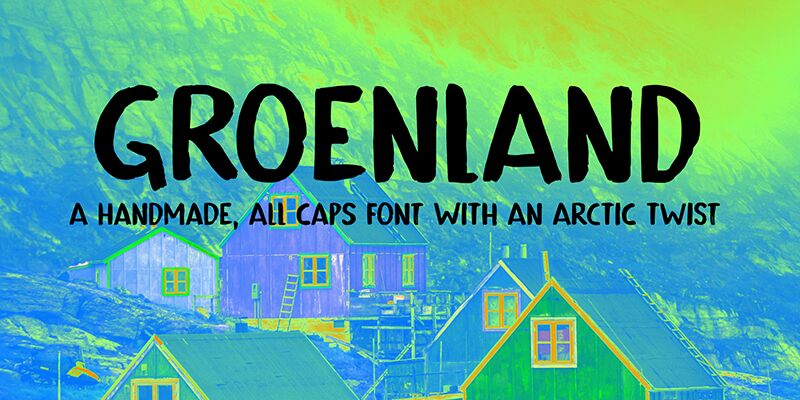
Groenland DEMO Regular
Groenland font by Hanoded embodies an ungainly, handcrafted appearance with earthy tones and casual elegance. This brush-style font exudes rustic charm, making it perfect for artisans and designers who embrace imperfections in their designs.
This free brush font enhances invitations, greeting cards, branding projects, product packaging design, blogs, social media posts, labels, screenprinting workwear and accessories—bridging old-world charm with modern creativity.